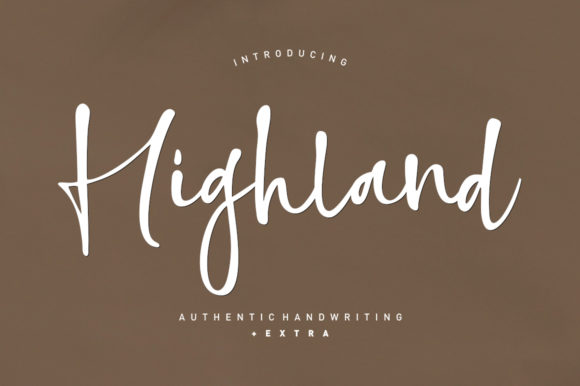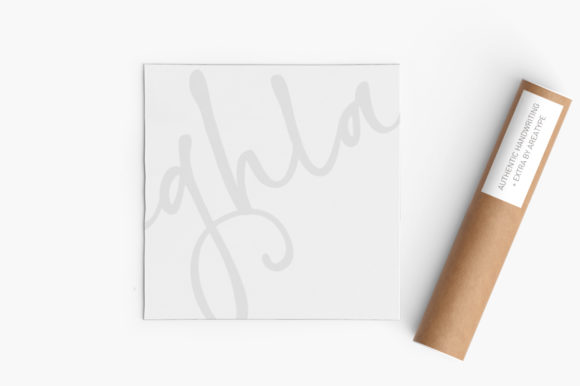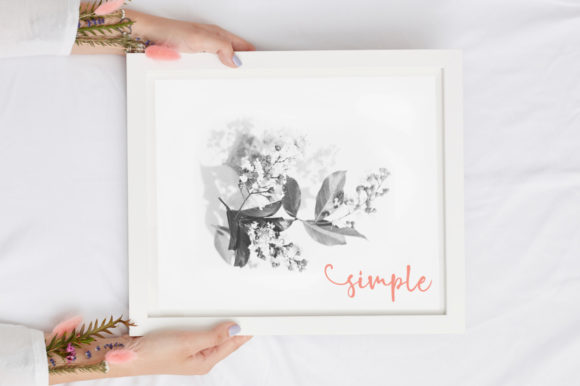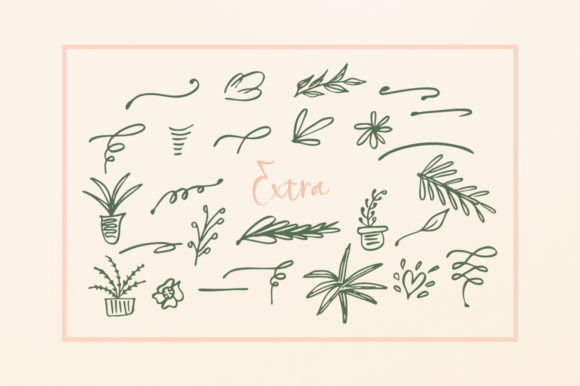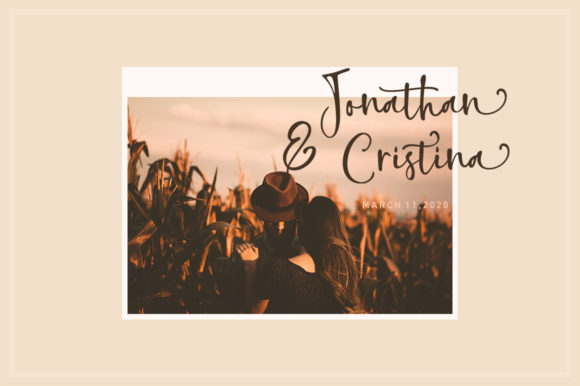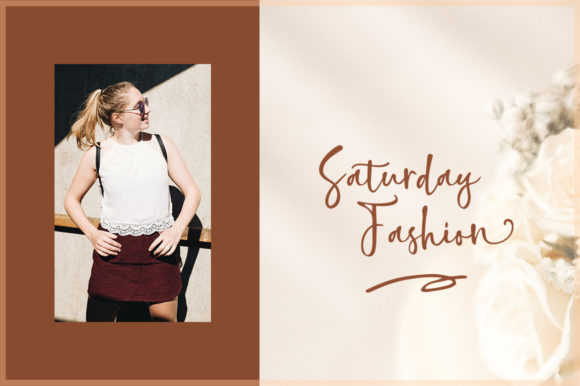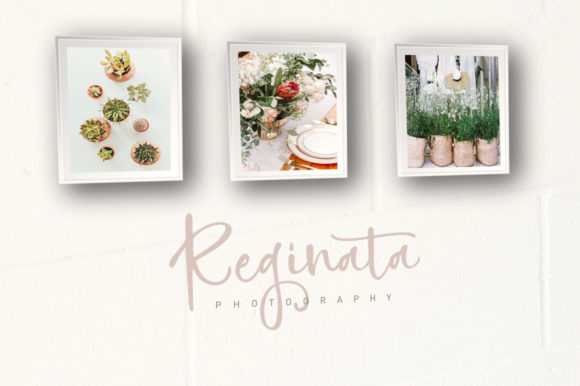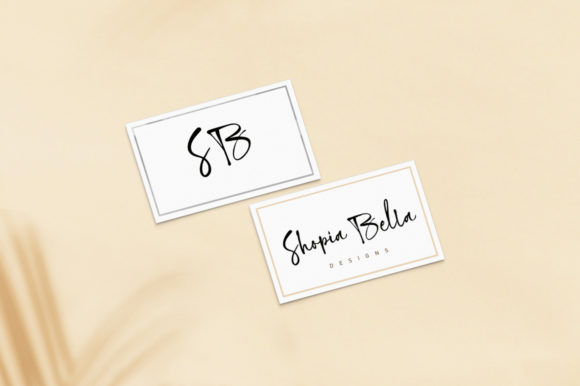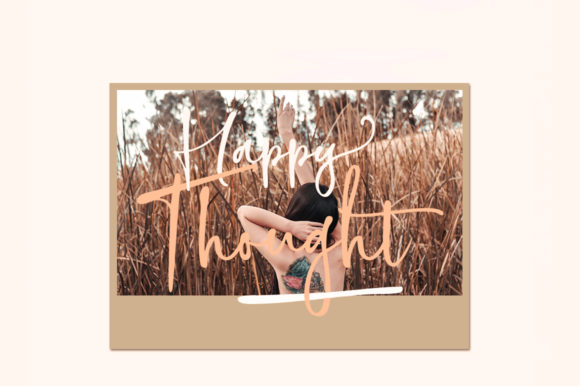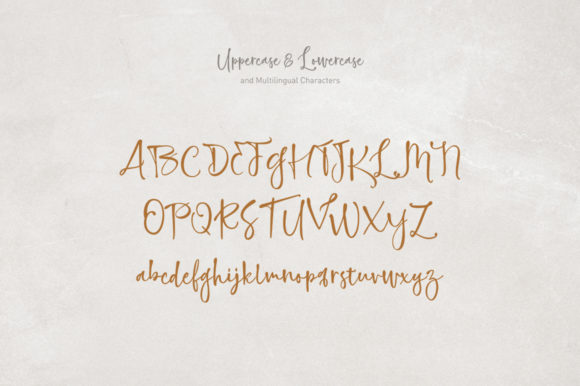
Highland Font
About Highland Font
Highland is a gorgeously modern and unique script that comes with a wealth of alternates and ligatures. It will provide you with limitless design options!